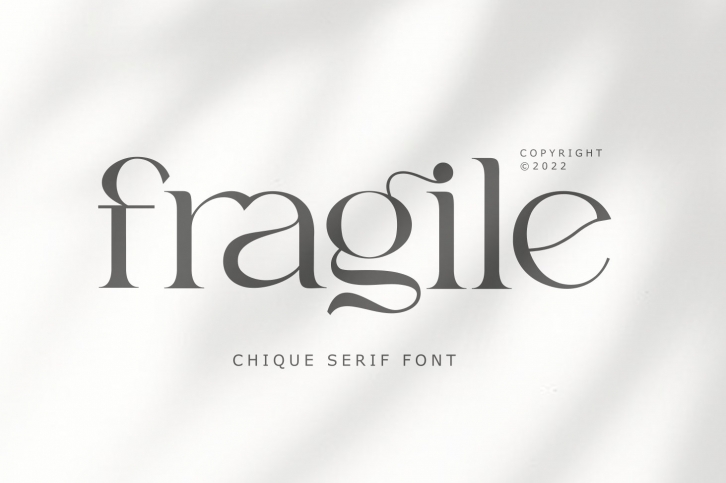
fragile is an elegant chique font.
fragile is a serif font, This font is perfect for Bandin, logo design, wedding, quotes, magazing anything do you want. You will get classy, elegant, and certainly unique logos with this font.